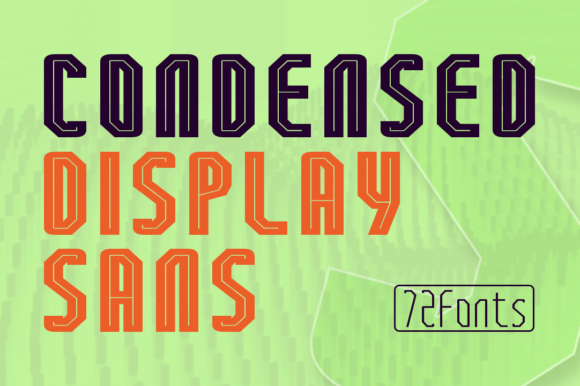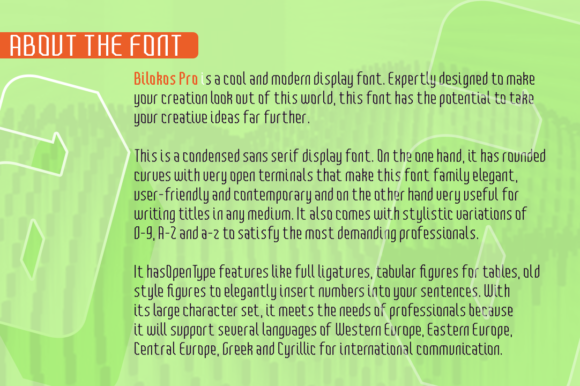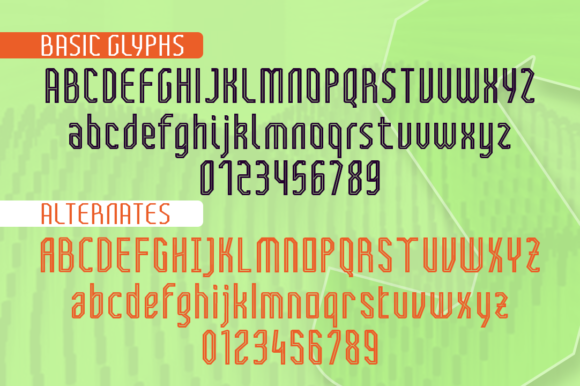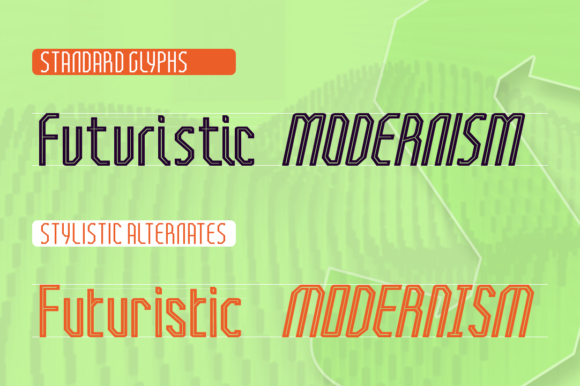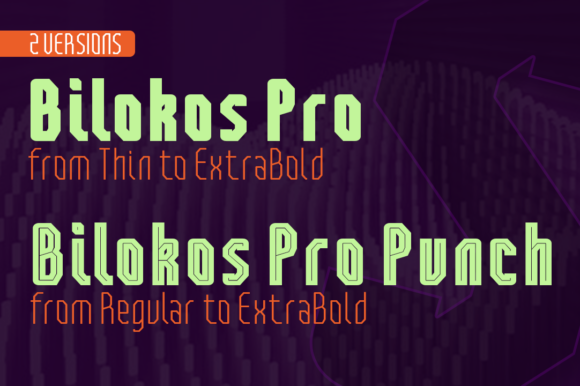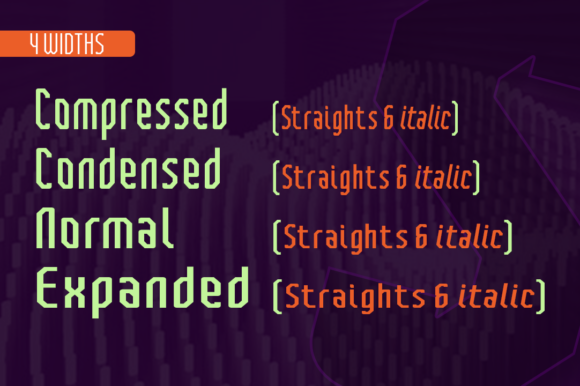
Bilokos Font: The Ultimate Display Font for Creative Projects
Bilokos is a bold and incredibly cool display font that has been making waves in the design community. Its unique style and versatility make it an excellent addition to any font library, allowing designers and crafters to elevate their creations to new heights. In this article, we’ll dive into the world of Bilokos font, exploring its features, benefits, and uses, as well as provide tips on how to make the most of this amazing font.
The Features of Bilokos Font
Bilokos font is a sans-serif display font that boasts a bold and eye-catching design. Its clean lines, sharp edges, and geometric shapes give it a modern and edgy feel that’s perfect for a wide range of creative projects. The font comes in a single style, making it easy to use and pair with other fonts. One of the standout features of Bilokos font is its incredible legibility, even at large sizes, making it ideal for headlines, titles, and other display text.
The Benefits of Using Bilokos Font
So, why should you consider adding Bilokos font to your library? Here are just a few benefits of using this amazing font:
- Versatility: Bilokos font can be used for a wide range of projects, from branding and advertising to packaging and digital design.
- Impact: The bold and eye-catching design of Bilokos font makes it perfect for creating attention-grabbing headlines and titles.
- Ease of use: With its simple and clean design, Bilokos font is easy to read and pairs well with a variety of other fonts.
- Uniqueness: Bilokos font has a distinctive style that sets it apart from other display fonts, making it perfect for designers looking to add a touch of personality to their work.
Using Bilokos Font in Your Designs
So, how can you make the most of Bilokos font in your designs? Here are a few tips:
- Pair it with contrasting fonts: Bilokos font pairs well with a variety of fonts, but it’s particularly effective when paired with contrasting fonts that have a softer or more elegant feel.
- Use it for headlines and titles: Bilokos font is perfect for creating attention-grabbing headlines and titles, making it ideal for use in advertising, branding, and digital design.
- Experiment with colors and textures: Bilokos font looks great in a variety of colors and textures, so don’t be afraid to experiment and find the combination that works best for your project.
- Keep it simple: While Bilokos font is bold and eye-catching, it’s still a simple font at heart. Keep your design clean and simple to let the font shine.
Bilokos Font in Crafting and DIY Projects
Bilokos font isn’t just limited to digital design – it’s also perfect for crafting and DIY projects. Whether you’re creating handmade cards, scrapbooking, or working on a craft project, Bilokos font can add a touch of personality and style to your work. Here are a few ideas for using Bilokos font in crafting and DIY projects:
- Handmade cards: Use Bilokos font to create bold and eye-catching headings on handmade cards.
- Scrapbooking: Add a touch of personality to your scrapbooking projects with Bilokos font, perfect for creating titles and headings.
- Craft projects: Use Bilokos font to add a bold and eye-catching element to your craft projects, such as signs, posters, and other decorative items.
Bilokos font is a bold and incredibly cool display font that’s perfect for designers and crafters looking to add a touch of personality to their work. With its clean lines, sharp edges, and geometric shapes, Bilokos font is a versatile and impactful font that can be used for a wide range of creative projects. Whether you’re working on a digital design project or a crafting and DIY project, Bilokos font is sure to become a valuable addition to your font library.